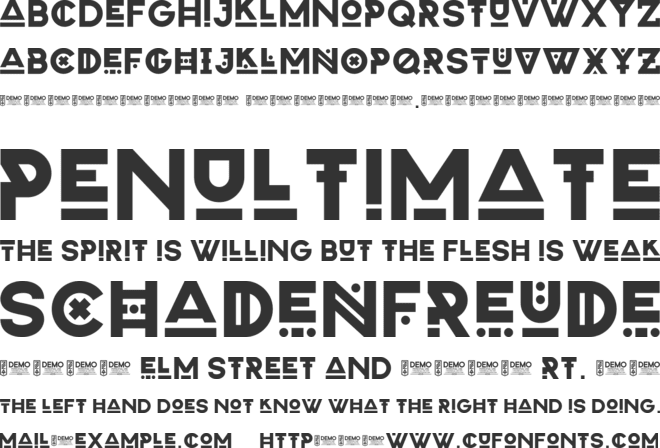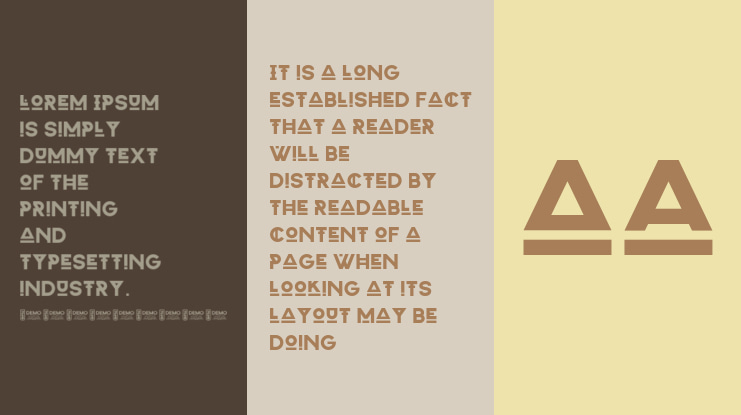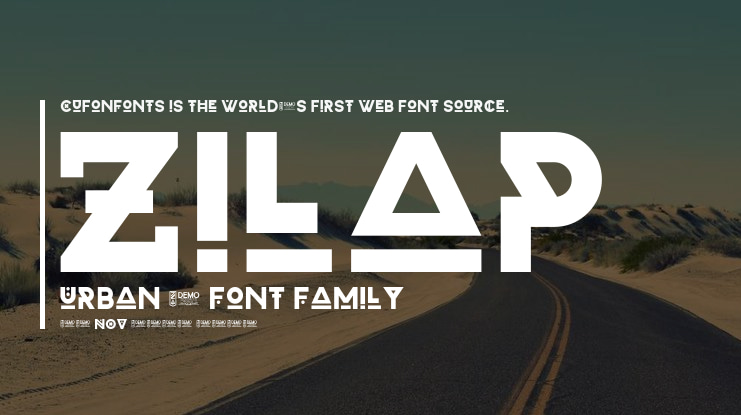
Zilap Urban 2 Font
Juan Navarro, Luis Jaramillo
Zilap Urban 2 redefines the essence of urban typography with a bold and vibrant design that captures the energy of urban music and fashion trends. With its bold and distinctive geometric aesthetic, this font is perfect for projects that seek to convey dynamism and authenticity. The new version incorporates innovative elements that enrich its character without losing the urban essence that defines it, while maintaining Zilap Estudio's creative DNA. Ideal for branding, editorial design and advertising campaigns, Zilap Urban 2 is more than a typeface: it is a statement of style and attitude.
Design and concept by Zilap Estudio
Assembly and casting by LJ Design Studios